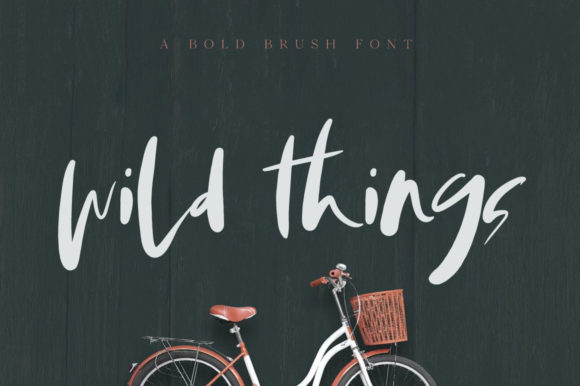
Embark on a typographic expedition into the captivating realm of Wild Things, a script font brimming with adventure and playful spirit. This exquisite creation from Digital Hustler is designed to set your imagination free and infuse your designs with an unrestrained sense of joy.
Wild Things is not just a font; it's an escape into a world where creativity reigns supreme. Its enchanting organic curves evoke the untamed beauty of nature, inviting you to explore new design horizons. With its sunny disposition, Wild Things promises to bring warmth and cheer to any project it graces.
Whether you're crafting whimsical invitations, charming logos, or heartfelt social media posts, Wild Things is your trusty companion. Its expressive personality adds a touch of magic to every letter, making your words dance off the page with an infectious energy.
With Wild Things at your disposal, you'll discover a font that's as versatile as it is captivating. Its free-spirited nature adapts seamlessly to a myriad of design styles, from rustic and bohemian to modern and minimalist. The possibilities are limitless, bound only by the confines of your imagination.
So, surrender to the allure of Wild Things and watch as your designs transform into masterpieces that exude creativity and boundless imagination. Let this font be your guide into a world where anything is possible, where every letter tells a story, and where your designs come alive with playful exuberance.